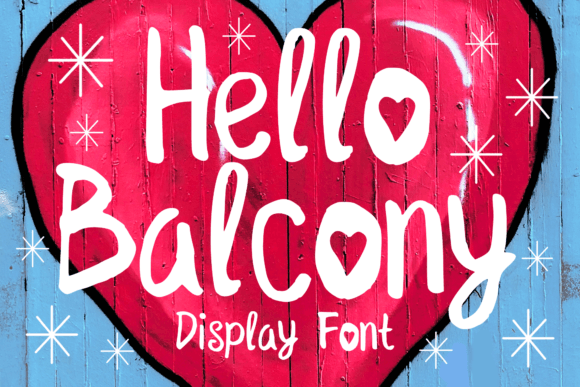
Discover the Charm of Hello Balcony Font
Have you ever been sipping your morning coffee, surrounded by scattered design sketches and a laptop screen full of color palettes, and suddenly felt the urge to create something warm and inviting? That’s exactly when I fell in love with the Hello Balcony Font – a beautiful, handmade paint font that adds a touch of whimsy to any design project.
This lovely font is perfect for adding a casual, approachable feel to your designs, whether you’re working on t-shirts, book covers, packaging, or greeting cards. Its versatility makes it a valuable asset for designers looking to create themed designs for special occasions like Christmas or Valentine’s Day. With the Hello Balcony Font, you’ll be able to craft lovely designs that evoke a sense of warmth and personality.
Hello Balcony Font Key Features
- Unique Characteristics: Hello Balcony Font features a unique blend of modern and vintage elements, making it suitable for a wide range of design projects, from fashion and beauty to home decor and stationery.
- Font Styles: The font family includes various styles, including Regular, Italic, Bold, and Bold Italic, allowing designers to add emphasis and create visual hierarchy in their designs.
Hello Balcony Font Review
First off, I want to say that Hello Balcony is a unique and visually appealing font. ✨ The subtle imperfections and character quirks give it a hand-crafted feel that’s perfect for projects where you want to add a touch of personality. I love how it works well in headings and titles, really making them stand out.
One of the things I appreciate about Hello Balcony is its flexibility. ✨ It looks great in both digital and print formats, and it’s easy to use across a range of platforms. The font also supports a wide range of languages, making it a great choice for global projects.
While Hello Balcony is a great font, there are a few limitations to consider. ⚠️ For one, it’s not the most readable font at smaller font sizes. This can make it challenging to use in situations where text needs to be displayed in a smaller format.
In conclusion, Hello Balcony is a solid choice for designers looking for a unique and eye-catching font. While it may have some limitations, its strengths far outweigh its weaknesses. I would recommend it for projects where you want to add a touch of personality and whimsy.
- Unique and visually appealing design
- Hand-crafted feel with subtle imperfections
- Flexible and easy to use across platforms
- Supports a wide range of languages
- May not be the most readable at smaller font sizes
Use “Hello Balcony Font” to add a touch of elegance to your designs.
Pair it with bold fonts for a striking contrast.